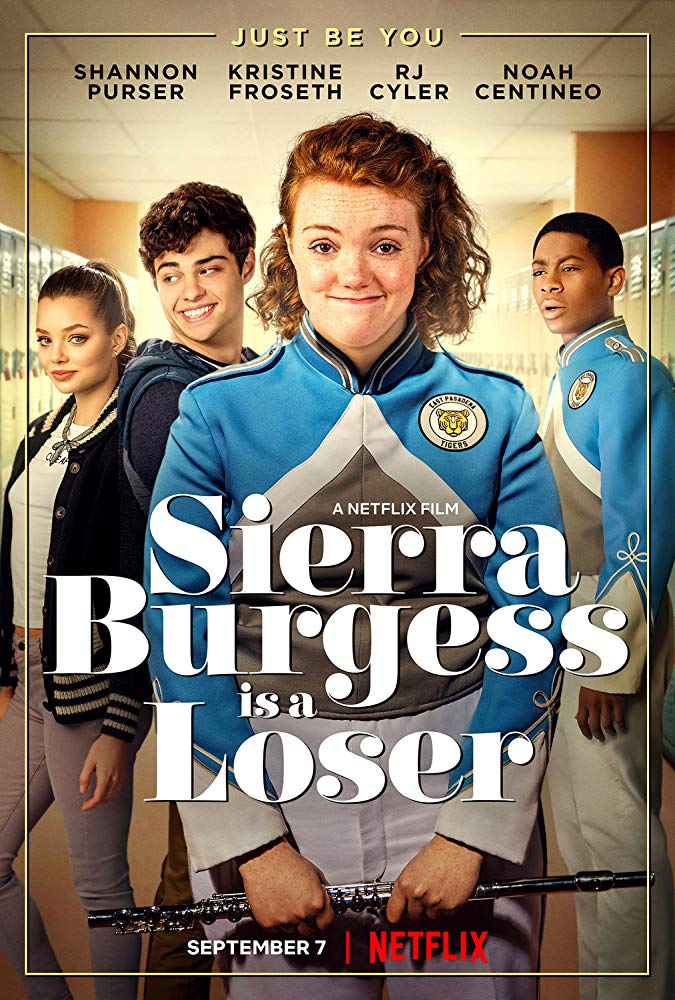
Sierra Burgess Is a Loser Font
ComedySierra Burgess Is a Loser is a 2018 American teen romantic comedy-drama film directed by Ian Samuels. The film follows Sierra Burgess, an intelligent but unpopular high school student, who teams up with a popular athlete to win over her crush.
"Sierra Burgess Is a Loser" title on the poster seems to use a fat face display font known as Carousel, designed by Gary Gillot in 1966. The title lettering that are shown in the trailer below is probably a serif called ITC Grouch designed by Tom Carnase and Ronne Bonder in 1970.